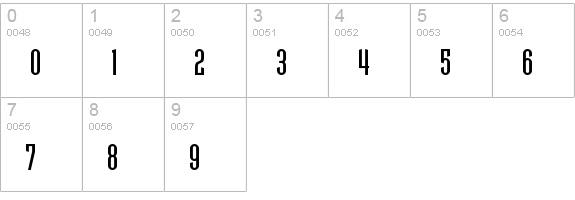
Conques-Demi Font Details
Conques-Demi is a sub-bold, structured variant in the Conques typeface family \xE2\x80\x94 well suited to sub-headlines and emphasised passages.
Conques-Demi font is a versatile and modern typeface that exudes sophistication and elegance. With its sleek lines and clean design, this font is perfect for a wide range of design projects, from branding to editorial layouts. Its bold and distinctive appearance makes it stand out while maintaining readability. What sets Conques-Demi font apart is its unique blend of classic and contemporary elements, making it suitable for both traditional and modern design applications. Whether you're looking to create a sleek logo, eye-catching headlines, or stylish packaging, this font has you covered. Best of all, Conques-Demi font is available for free download at FontsMarket.com. So, if you're looking to add a touch of sophistication to your next project without breaking the bank, look no further than Conques-Demi font. Download it today and elevate your design to the next level.